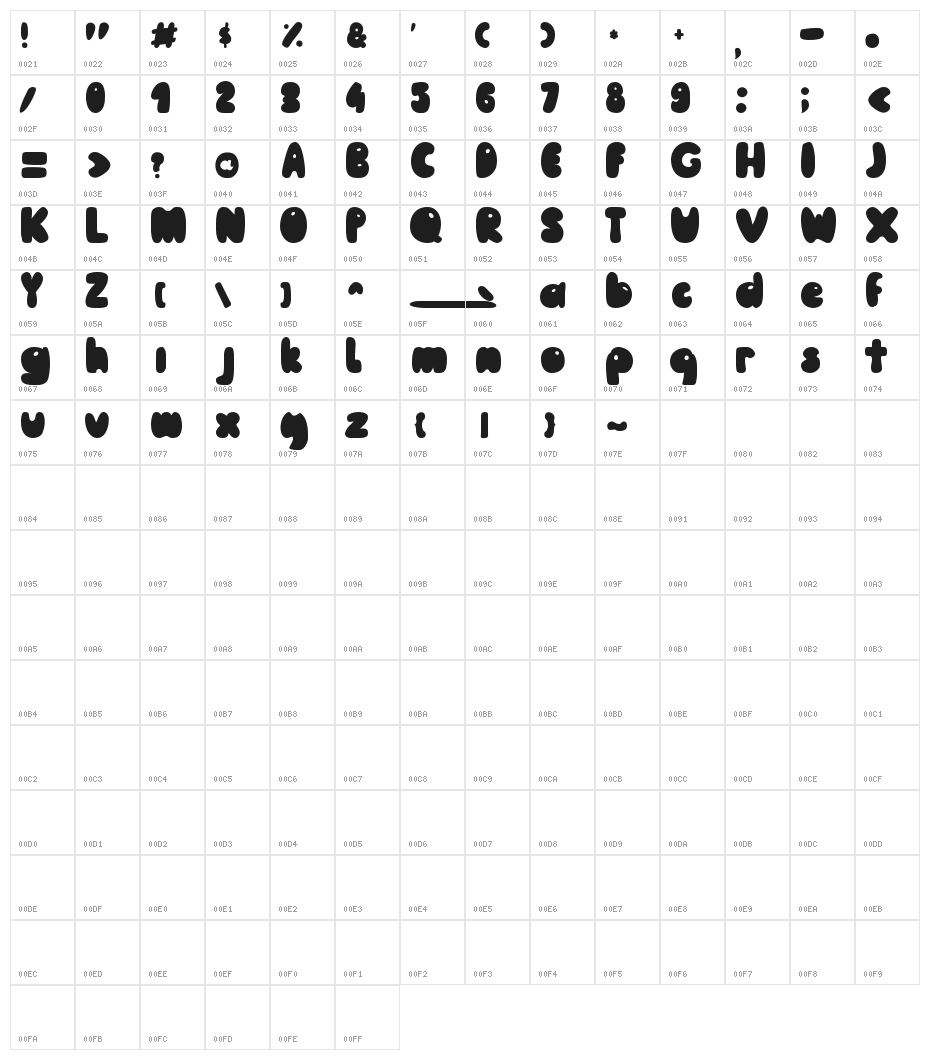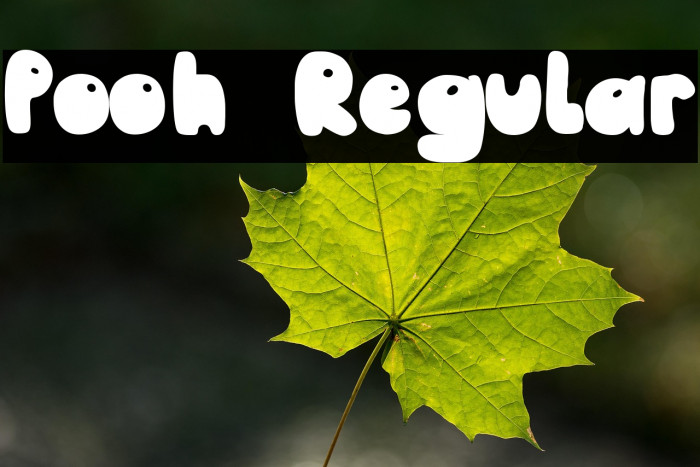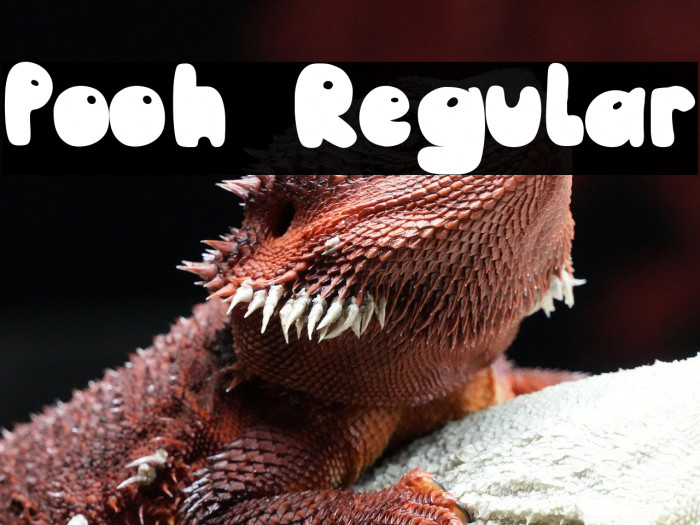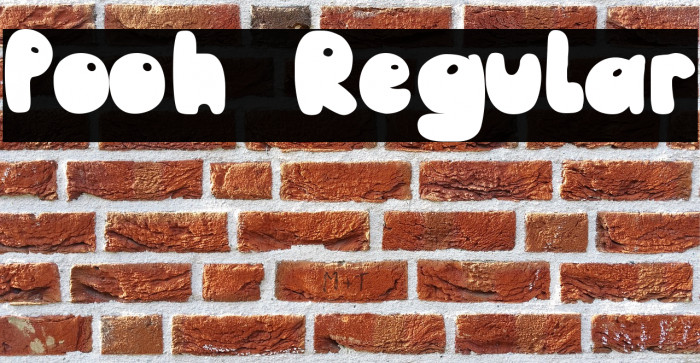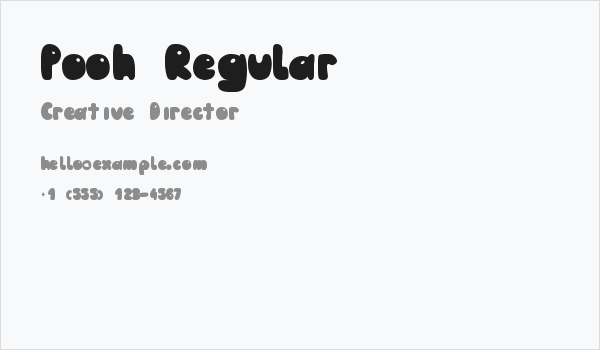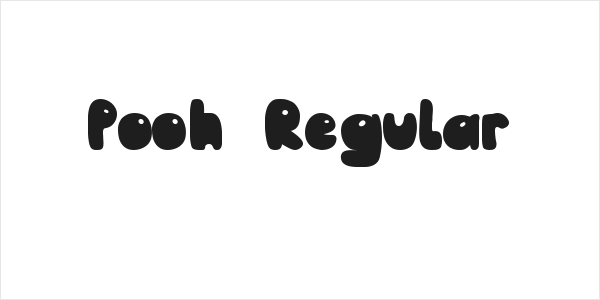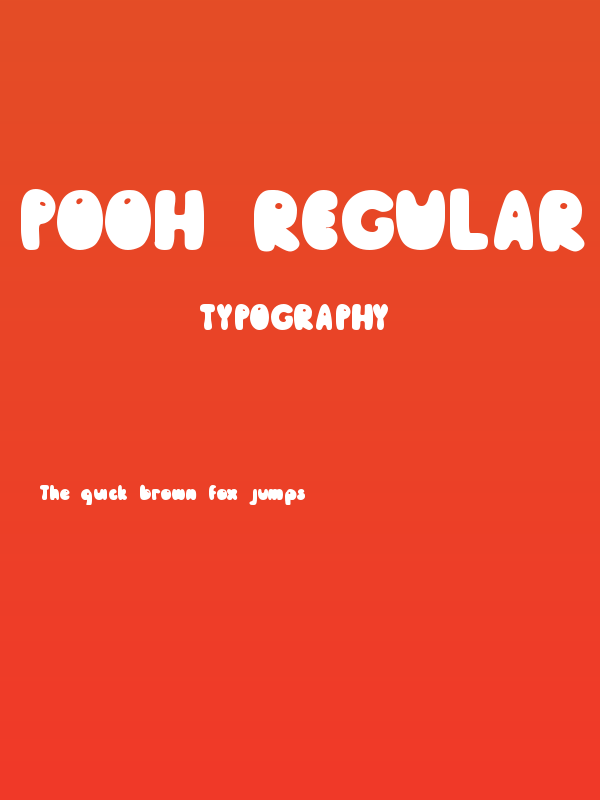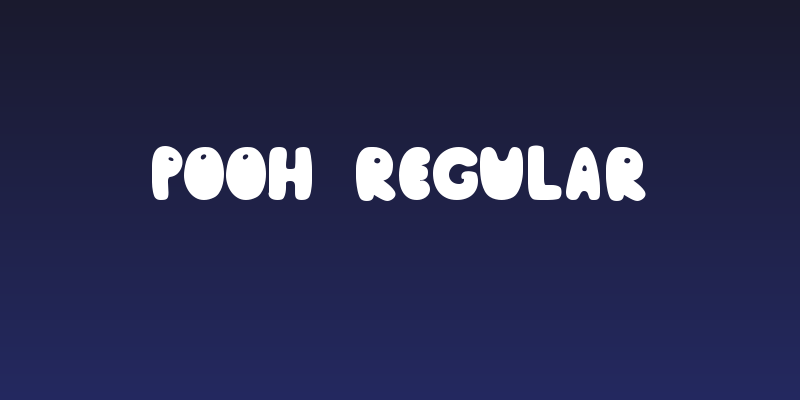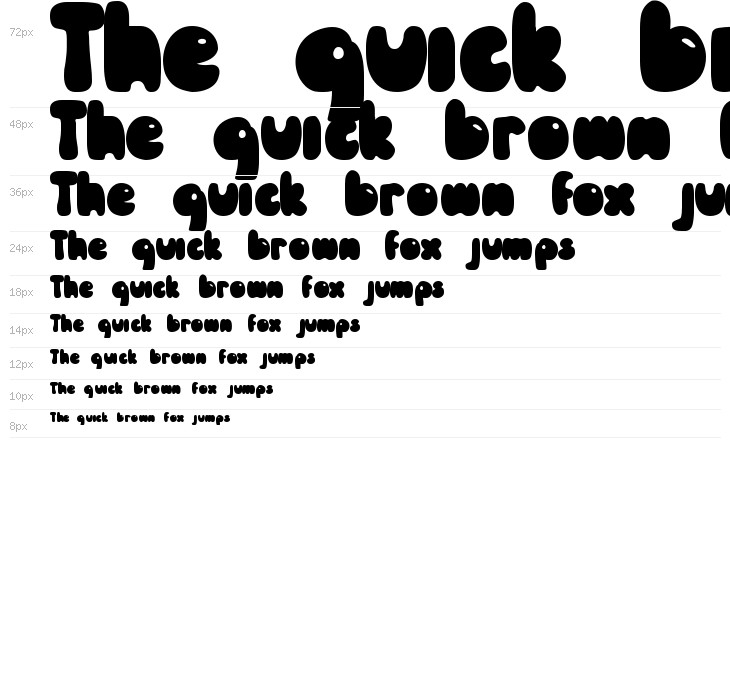
Pooh Regular Font
Pooh Regular Description
This playful and bold font features rounded, bubble-like characters that convey a sense of fun and whimsy. The letters are thick and uniform, with a consistent stroke width that gives them a solid and substantial appearance. The overall design is smooth and friendly, making it ideal for projects that require a lighthearted and approachable feel. The numbers and special characters maintain the same bubbly aesthetic, ensuring a cohesive look across all text elements. This font is particularly suitable for children's materials, playful branding, or any creative project that seeks to evoke joy and imagination.
| Proposed Projects | Children's books, playful branding, party invitations, toy packaging, and creative posters. |